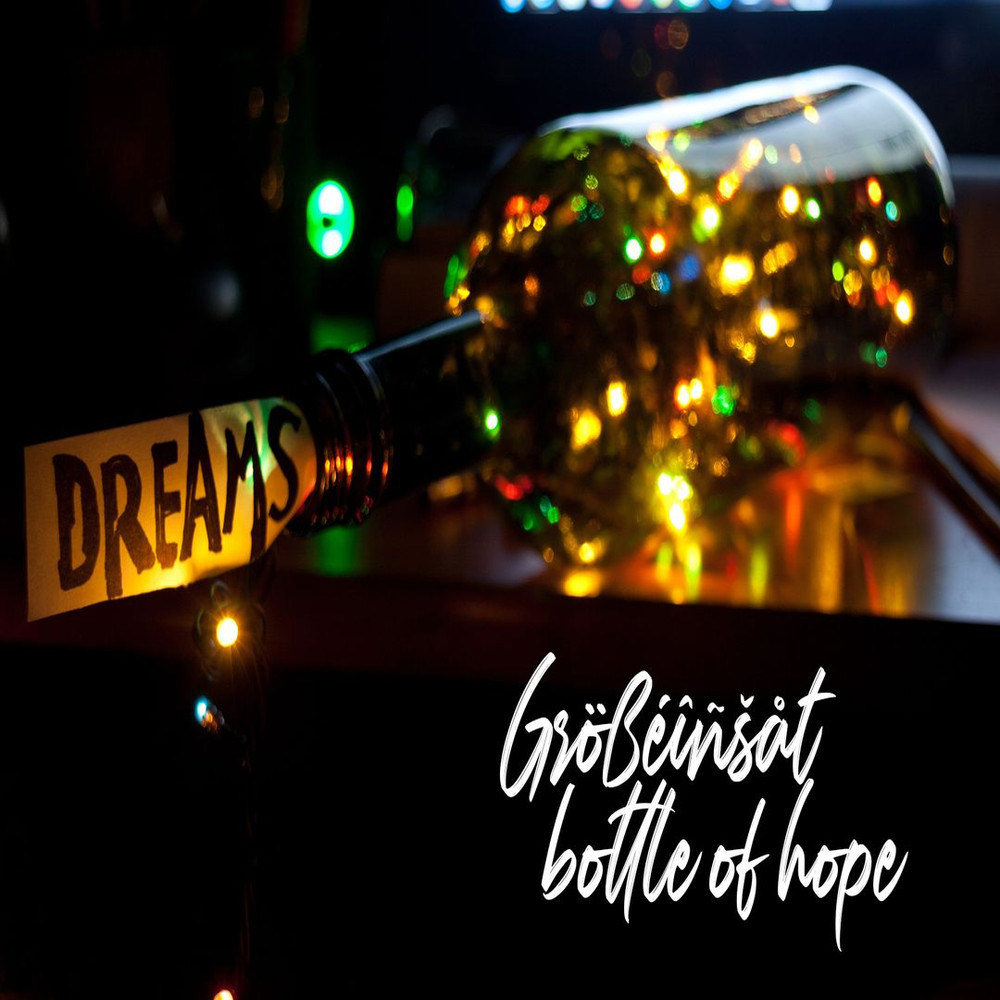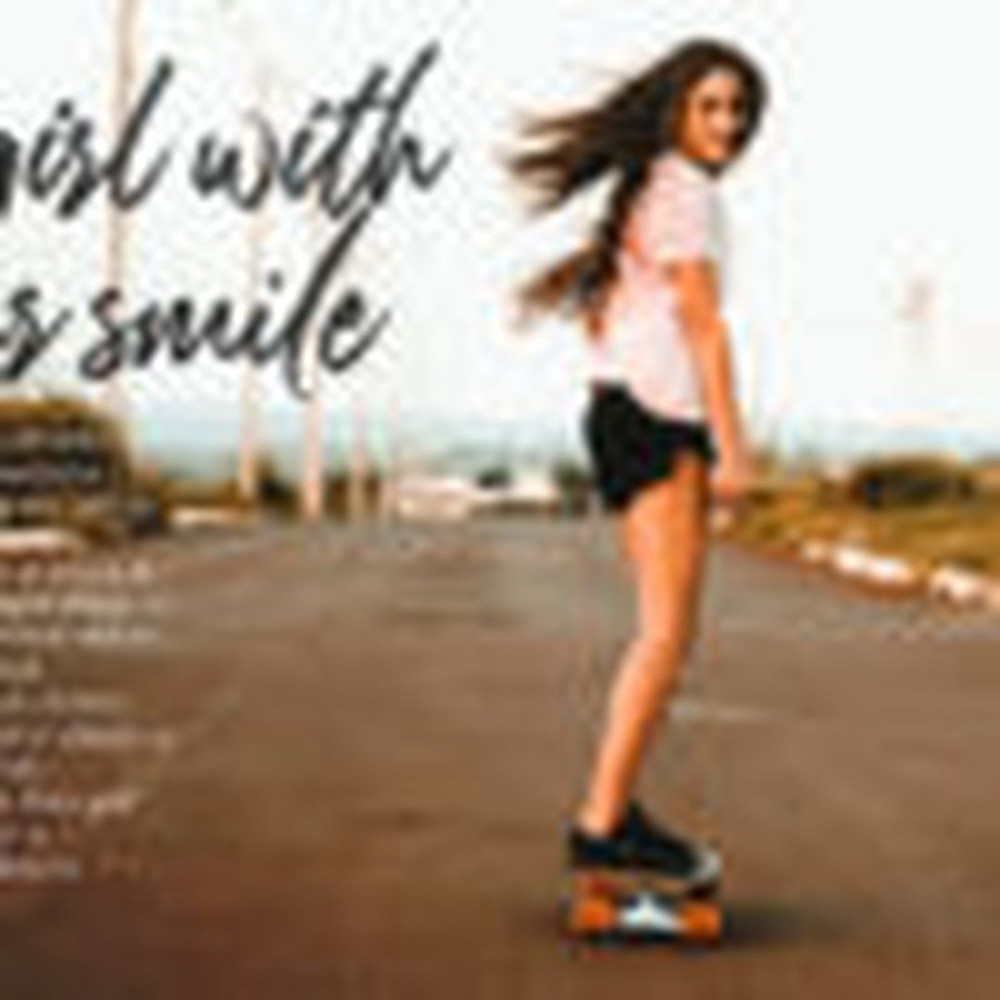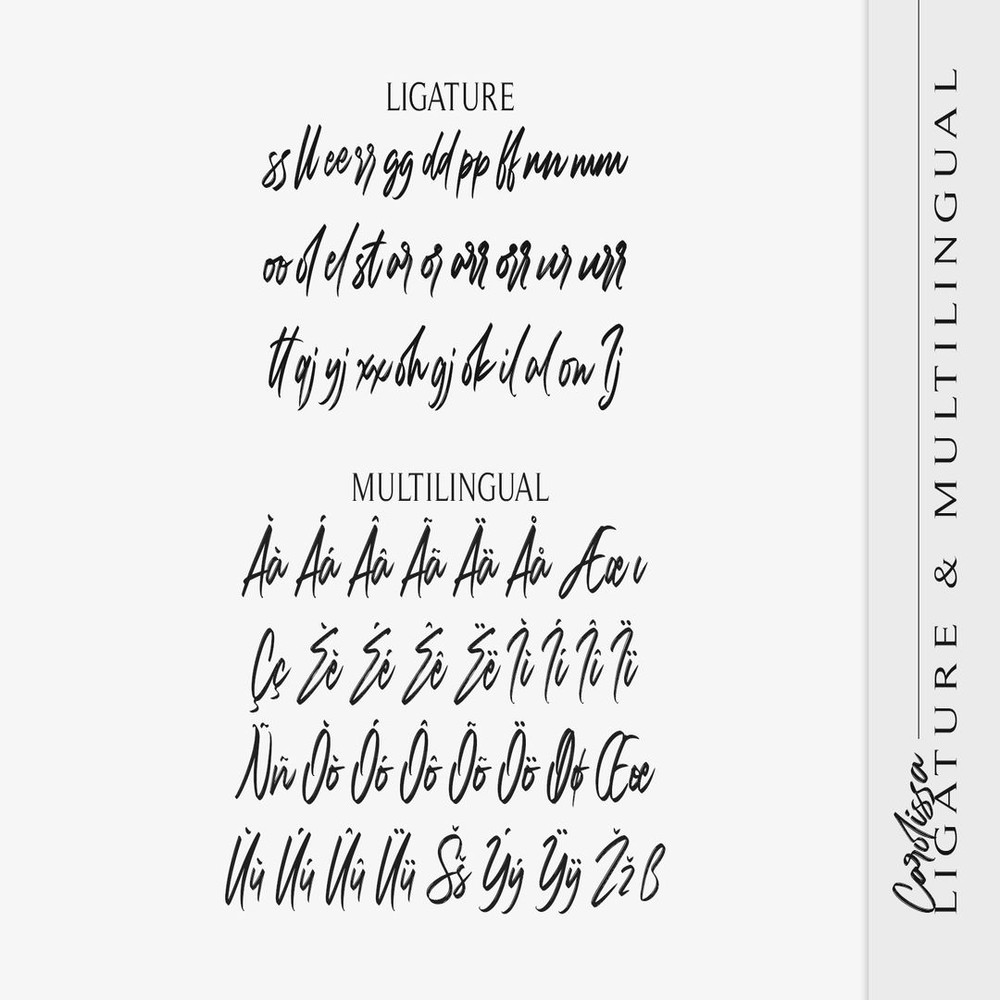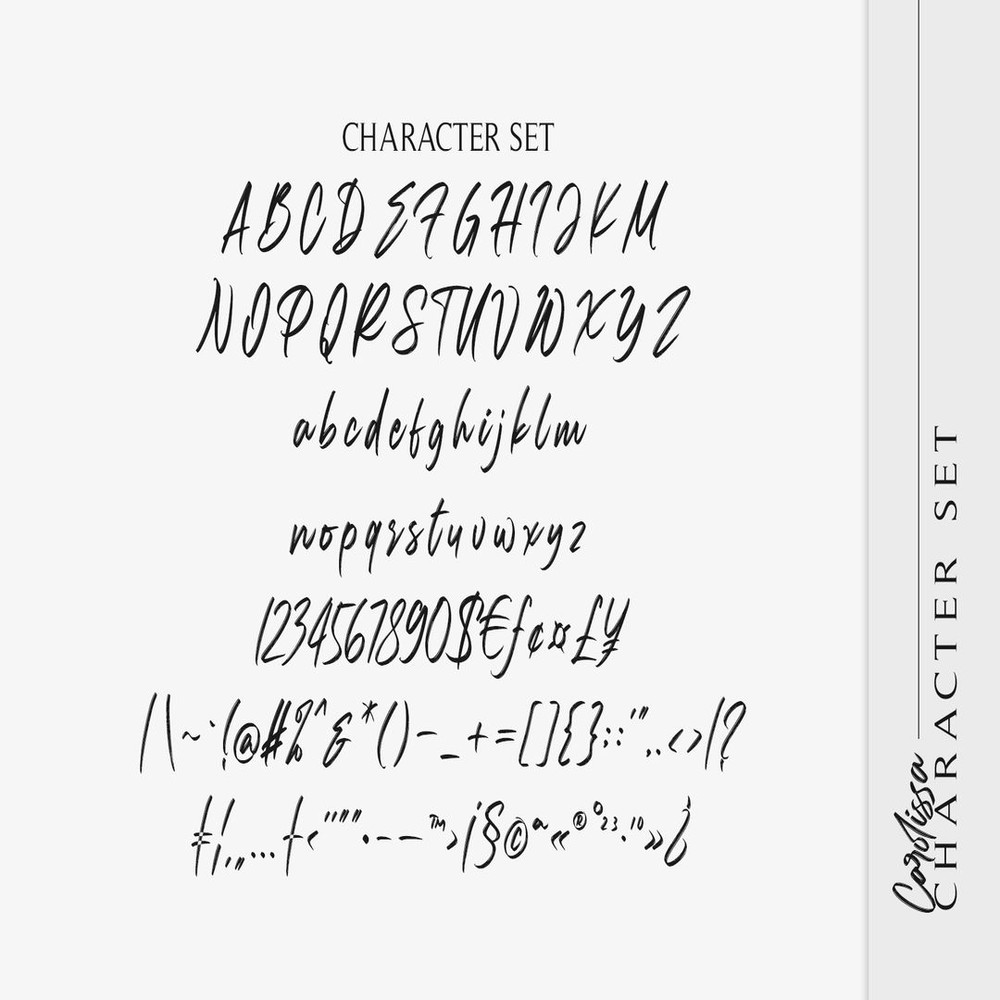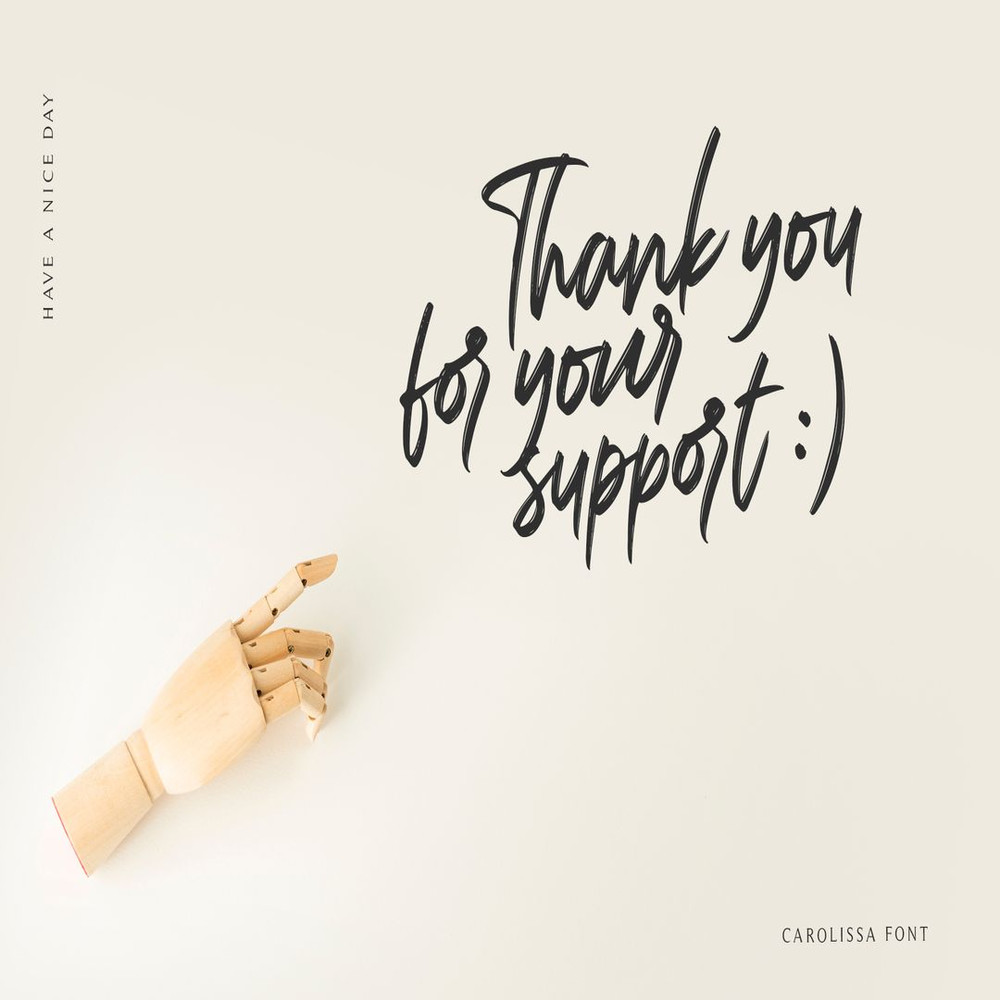
Carolissa is script brush font with handwriting style, it’s simple and classy font that suitable for various design project. With dynamic and spontaneous flow gesture, Carolissa will add more drama to your project. This font includes uppercase, lowercase, numeral, punctuation, ligature, and multilingual support also already PUA encoded.